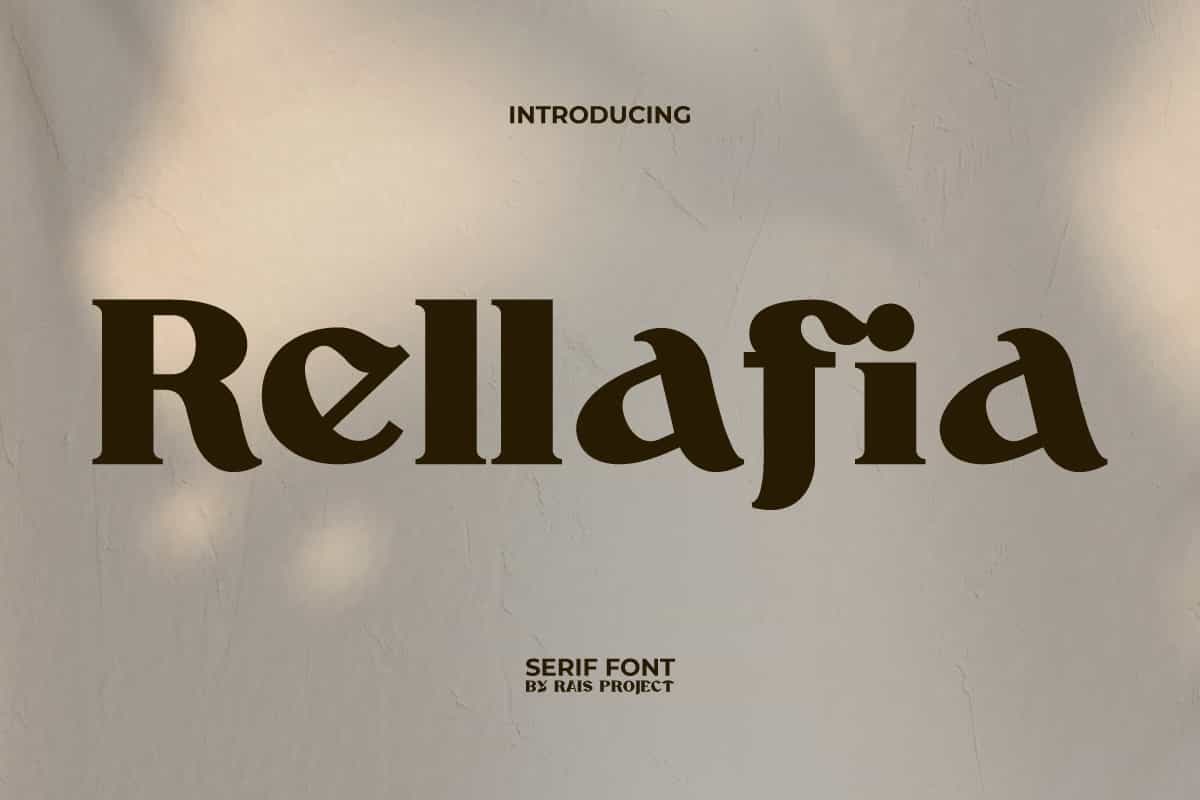
Rellafia Font
Rellafia Font is an aesthetic classic bold serif font, crafted by RaisProject to make your designs looks stunning!
Rellafia Font is a bold stunning serif display font. This font has thick characters with a combination of wavy lines that make it lovely. It will be good for any designs, such as brand image, cover, custom design, flyer, invitation, label, marketing material, poster, product packaging, quotes, signage, stationery, website page, and more!
Rellafia Font includes a full set of Uppercase and Lowercase Letters, Numerals, and large range of Punctuation. This stunning font will be suitable for various industries, such as accessories, advertising, beauty product, event or festival, fashion brand, marketing, printing, publishing, real estate, spa and salon, etc.